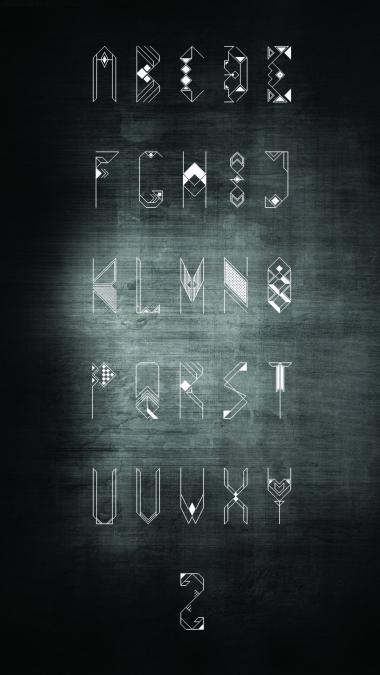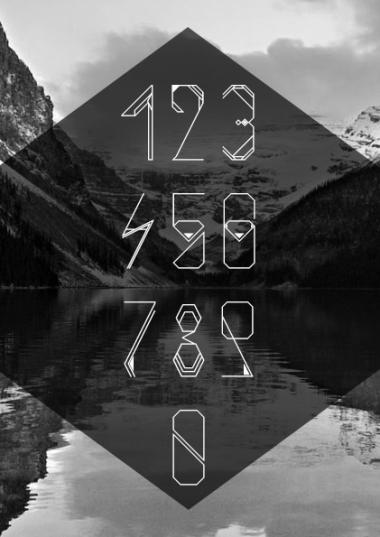
Cool!
Very decorative, very artistic, I like it! And it is a great first font. Welcome to FontStruct! I hope to see more of your work :) Will you make numbers and (some of the) punctuation marks to go with the Alaska letters?
An excellent first font - and a great sample. 10/10
A first font? - amazing. These structures remind me of cut glass, sometimes seen in window and mirror settings. Maybe you're an architect.
Awesome! I really like this! The shapes are very inntricate and beautiful and remind me of stained glass in churches. Beautiful sample also.
Wow. 10/10.
Superb
awesome
Exquisite set of numbers
Wow, awesome characters!
Beautiful numerals, good work!